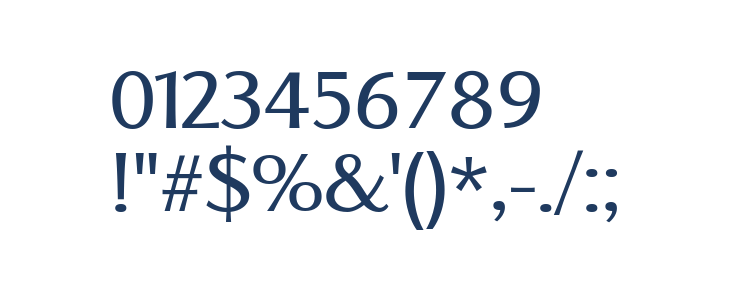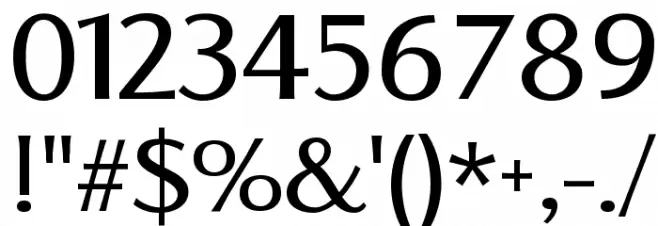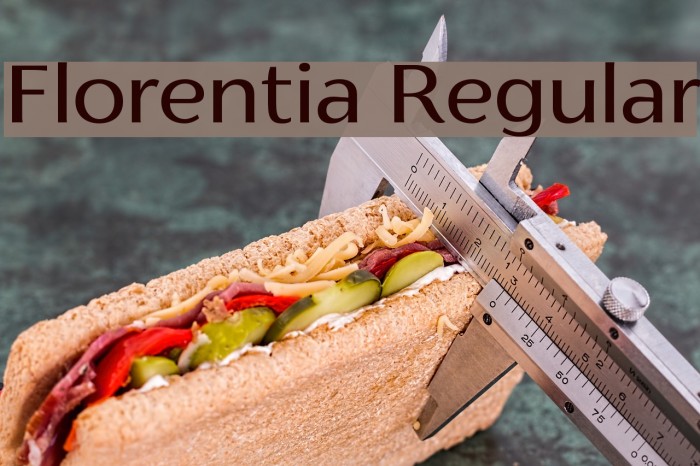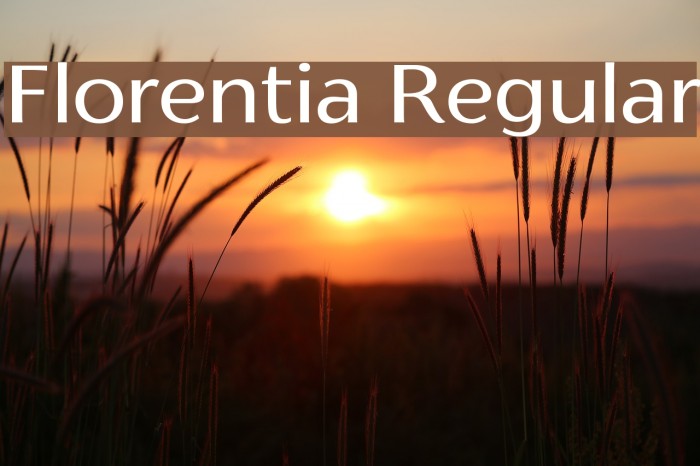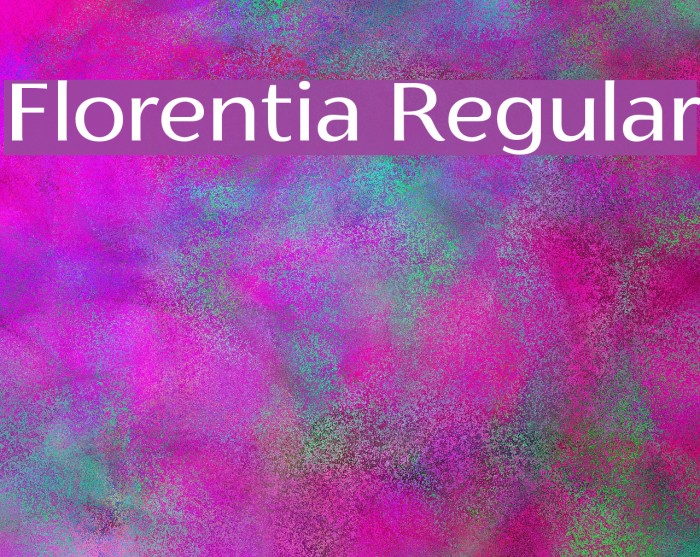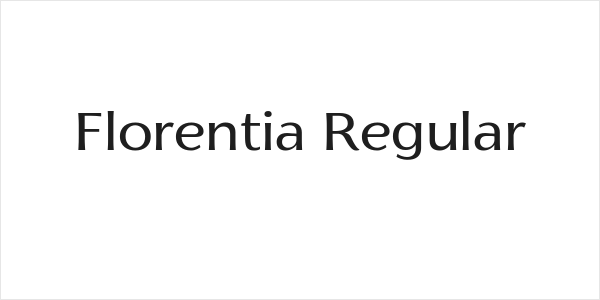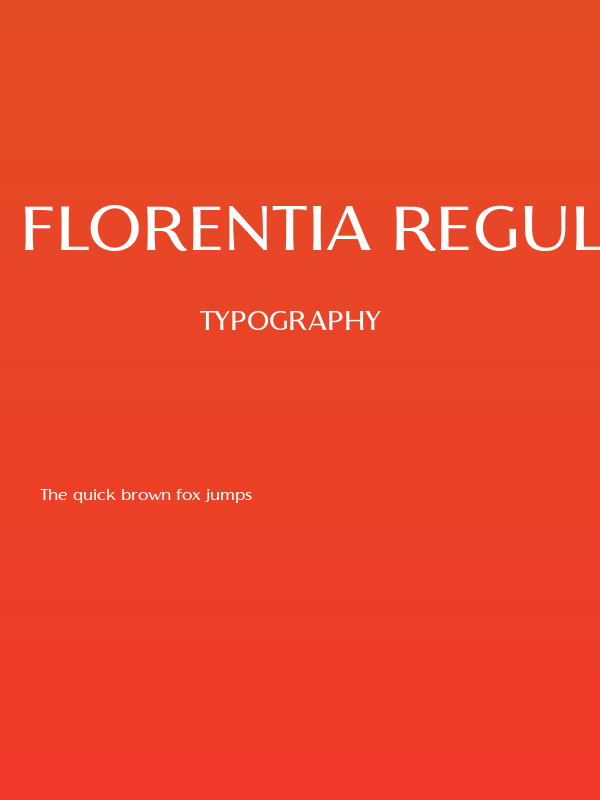
Florentia Regular Font
Florentia Regular Description
This typeface features a clean and modern design with a sans-serif style. The characters are well-proportioned, offering a harmonious balance between curves and straight lines. The uppercase letters are bold and assertive, while the lowercase letters maintain a smooth and approachable appearance. Numerals are clear and easily distinguishable, making them suitable for various applications. The special characters are crafted with precision, ensuring consistency across the font. This font is versatile, suitable for both digital and print media, and can enhance readability in various contexts.
| Proposed Projects | Ideal for branding, web design, editorial layouts, and advertising materials. |